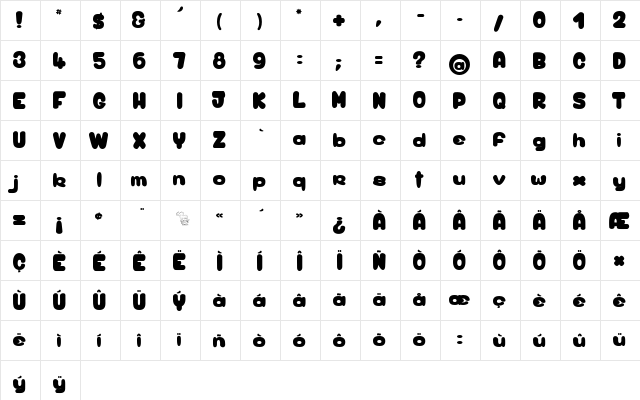
Birdy Game Regular
| Foundry | dcoxy Medina Gregory |
| Designer | dcoxy Medina Gregory |
Design Context for Birdy Game Typeface
Birdy Game is a composed and adaptable typeface that performs quietly and consistently across a wide range of design contexts.